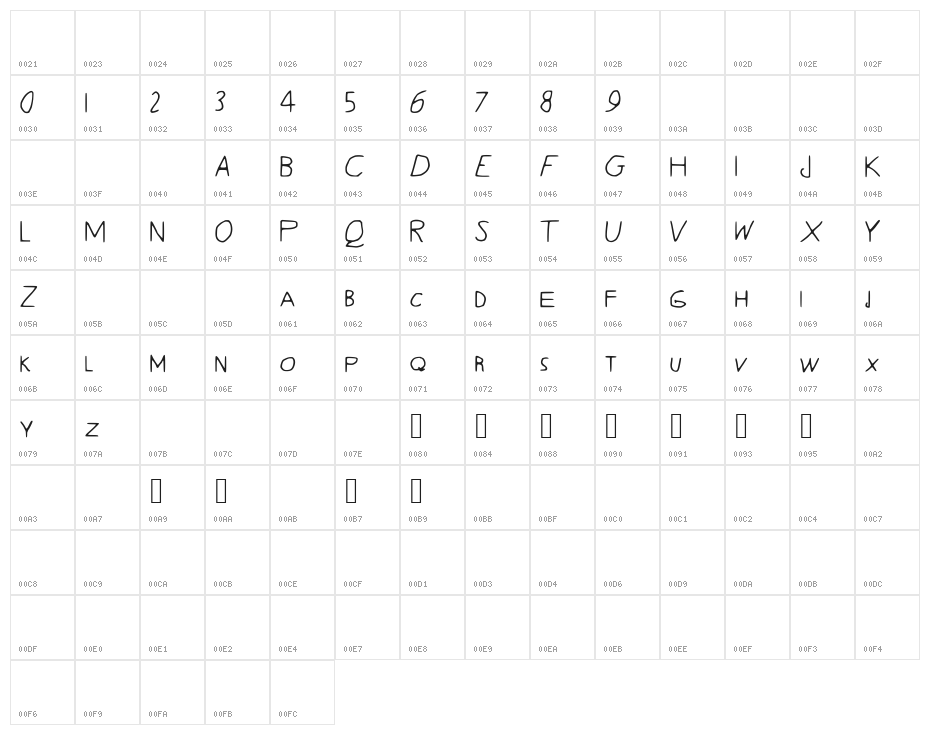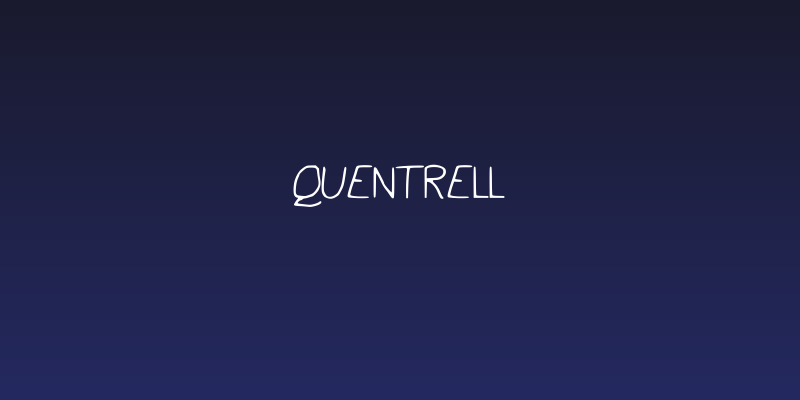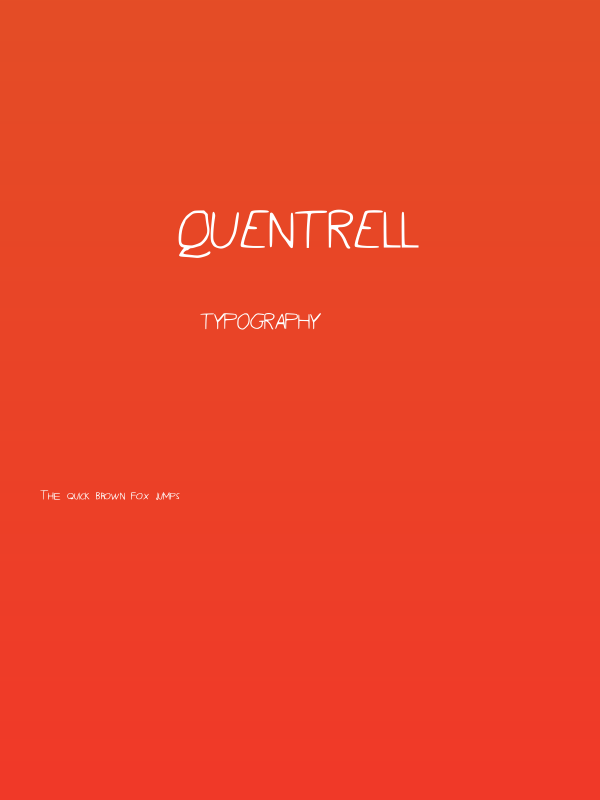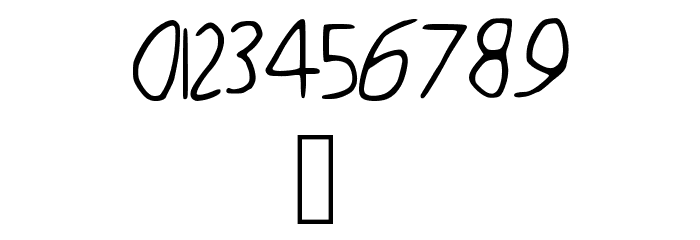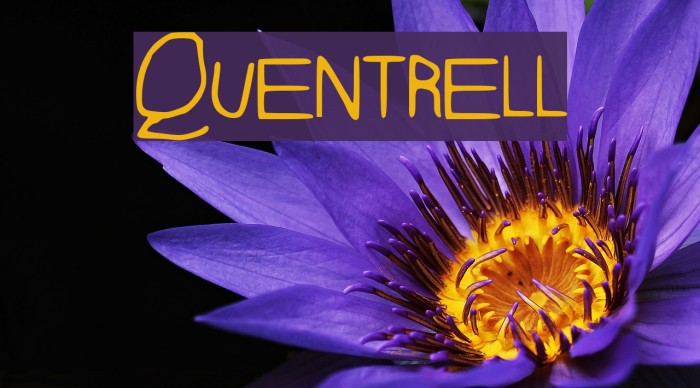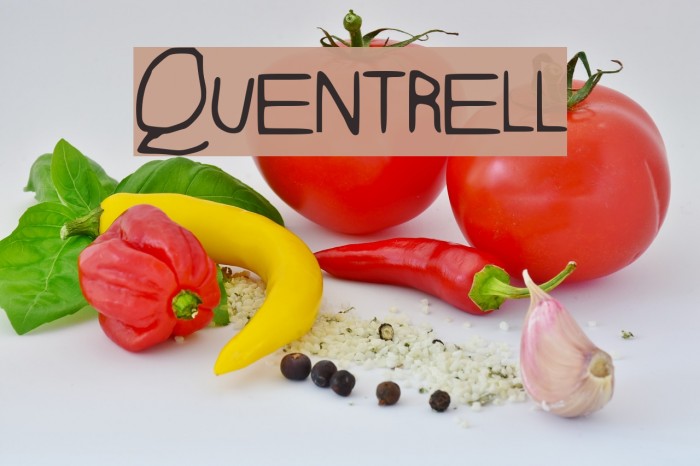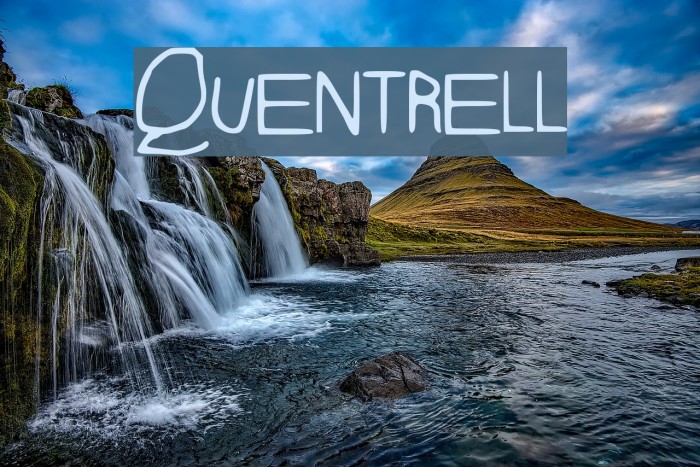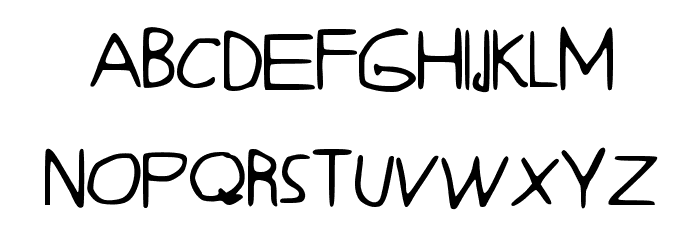
Quentrell Font
Quentrell Description
This font features a unique, hand-drawn style with a playful and informal appearance. The letters are slightly irregular, giving them a whimsical and artistic feel. The uppercase and lowercase characters maintain a consistent style, with rounded edges and a casual flow. The numbers are similarly styled, with a quirky and approachable look. Special characters are included, maintaining the same hand-drawn aesthetic. This font is perfect for projects that require a personal touch or a creative flair.
| Use Case | Logos, Posters, Creative projects |
| Proposed Projects | Ideal for children's books, creative posters, greeting cards, and artistic branding. |